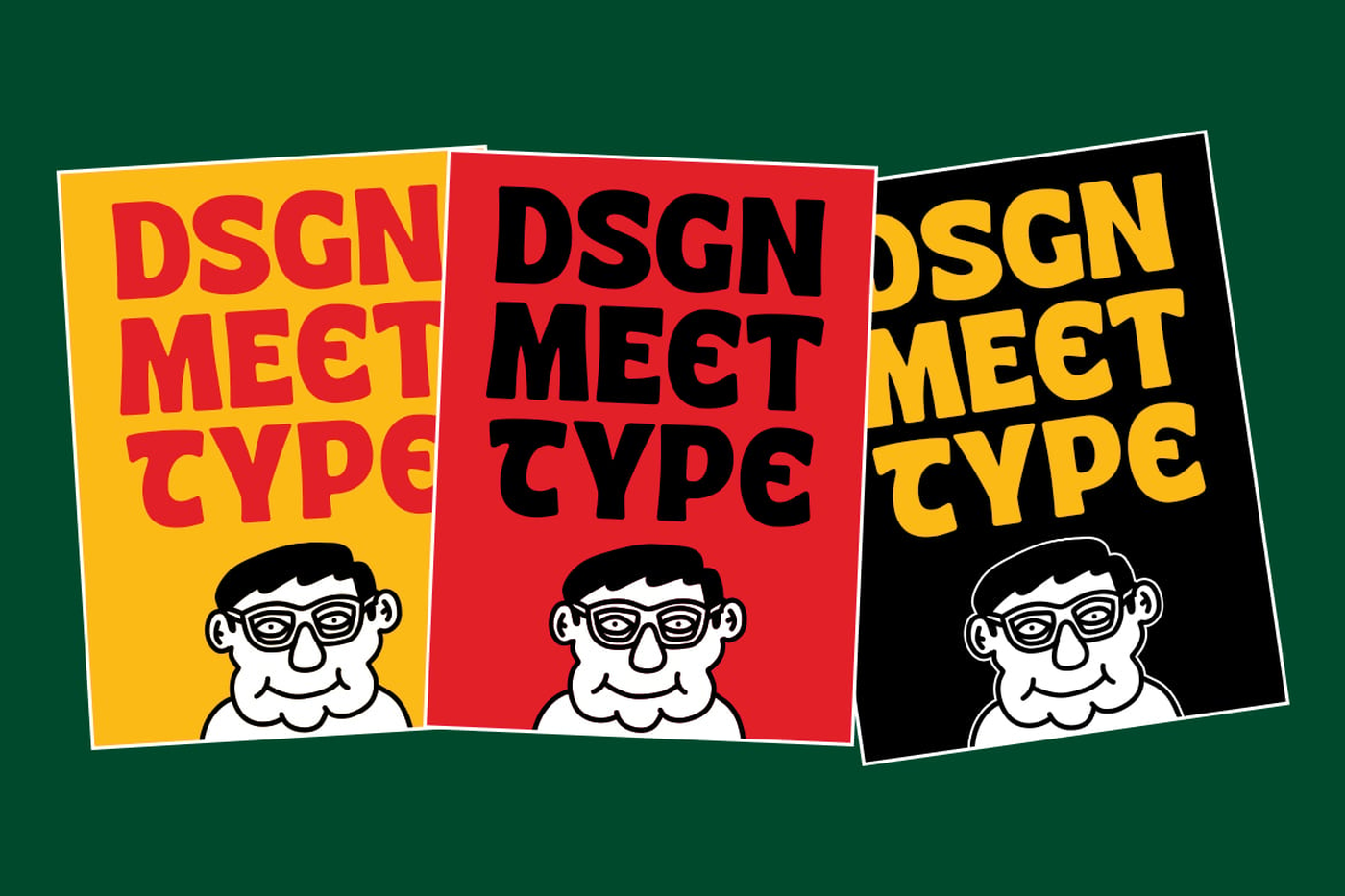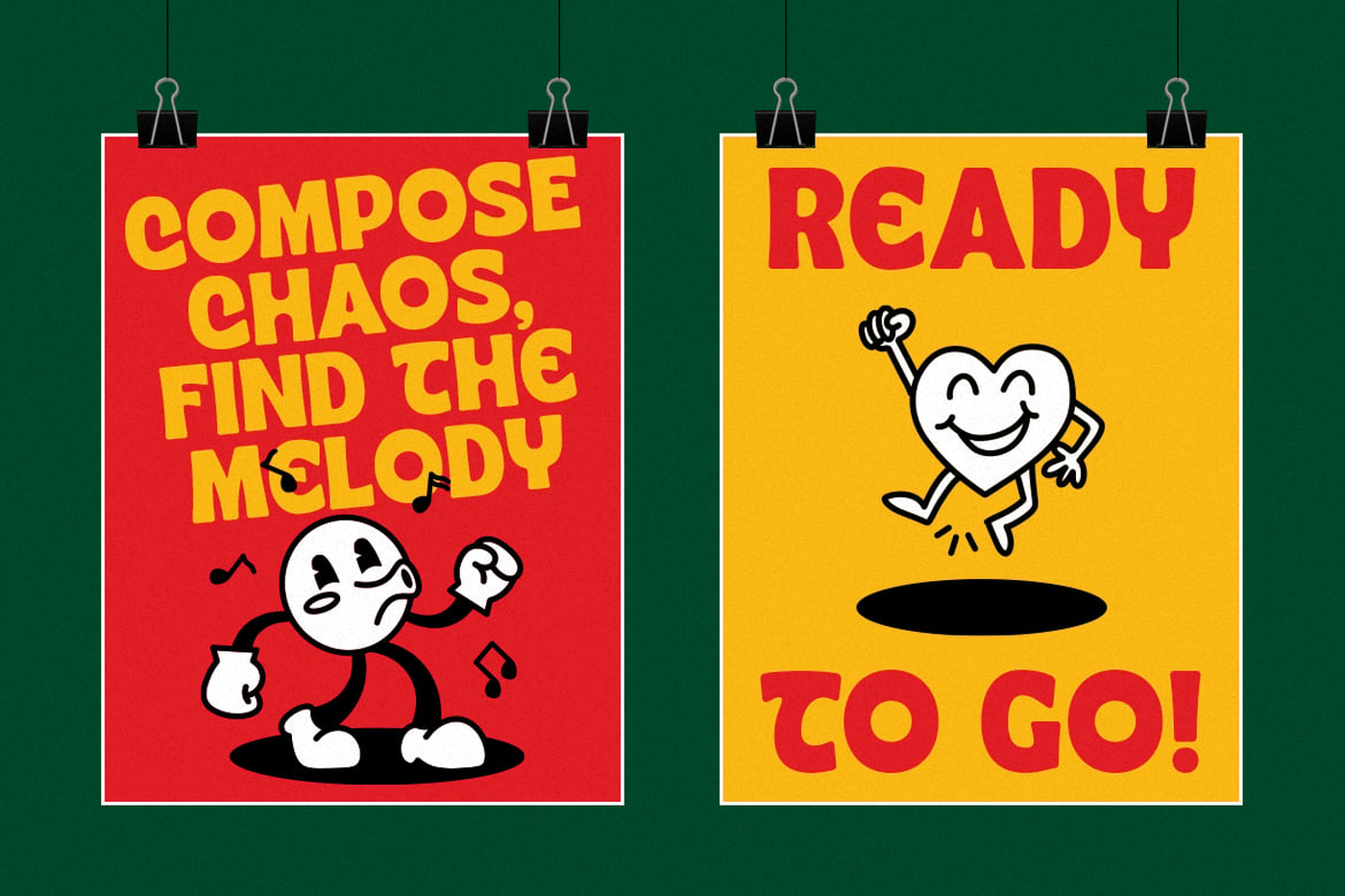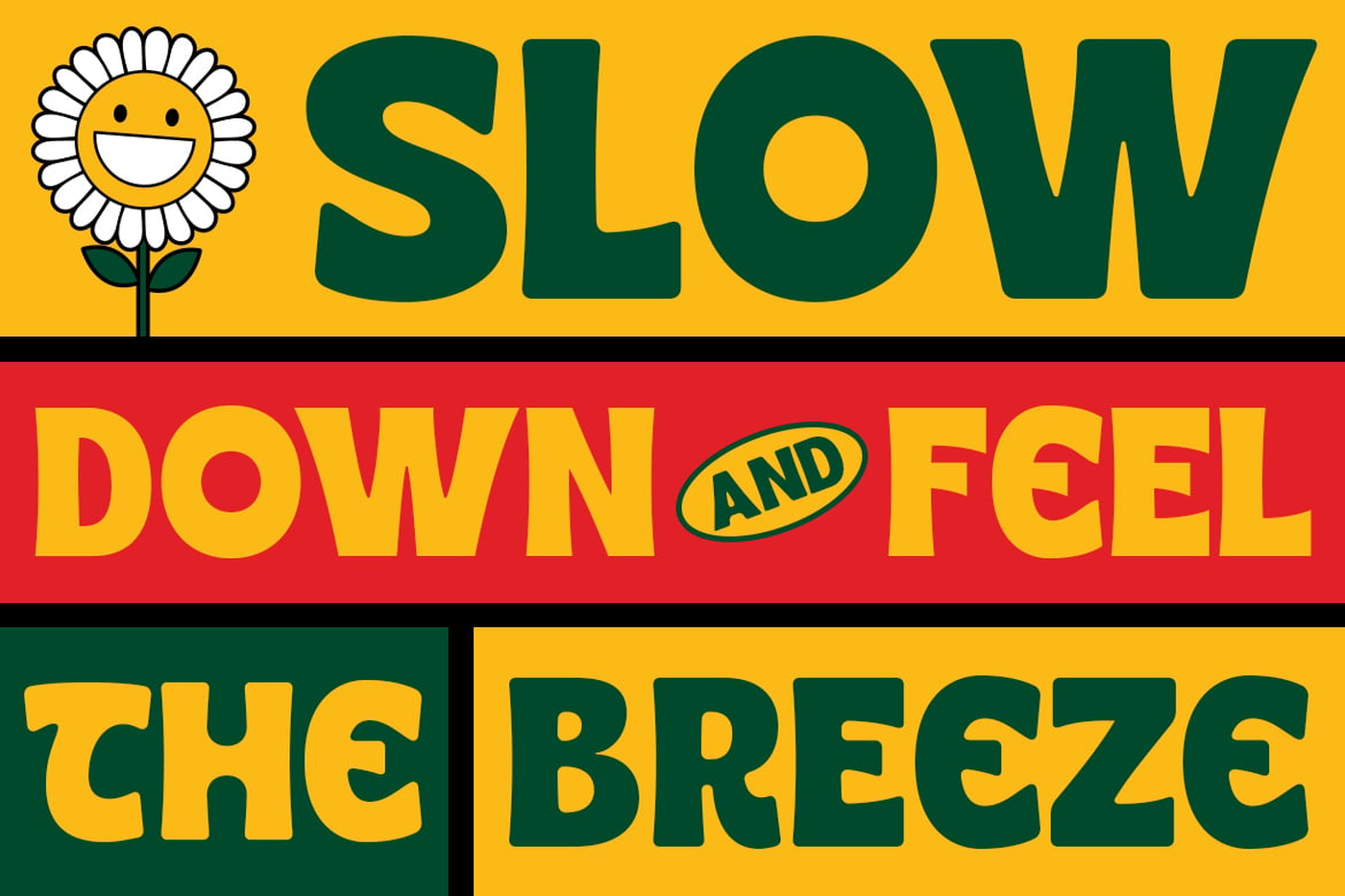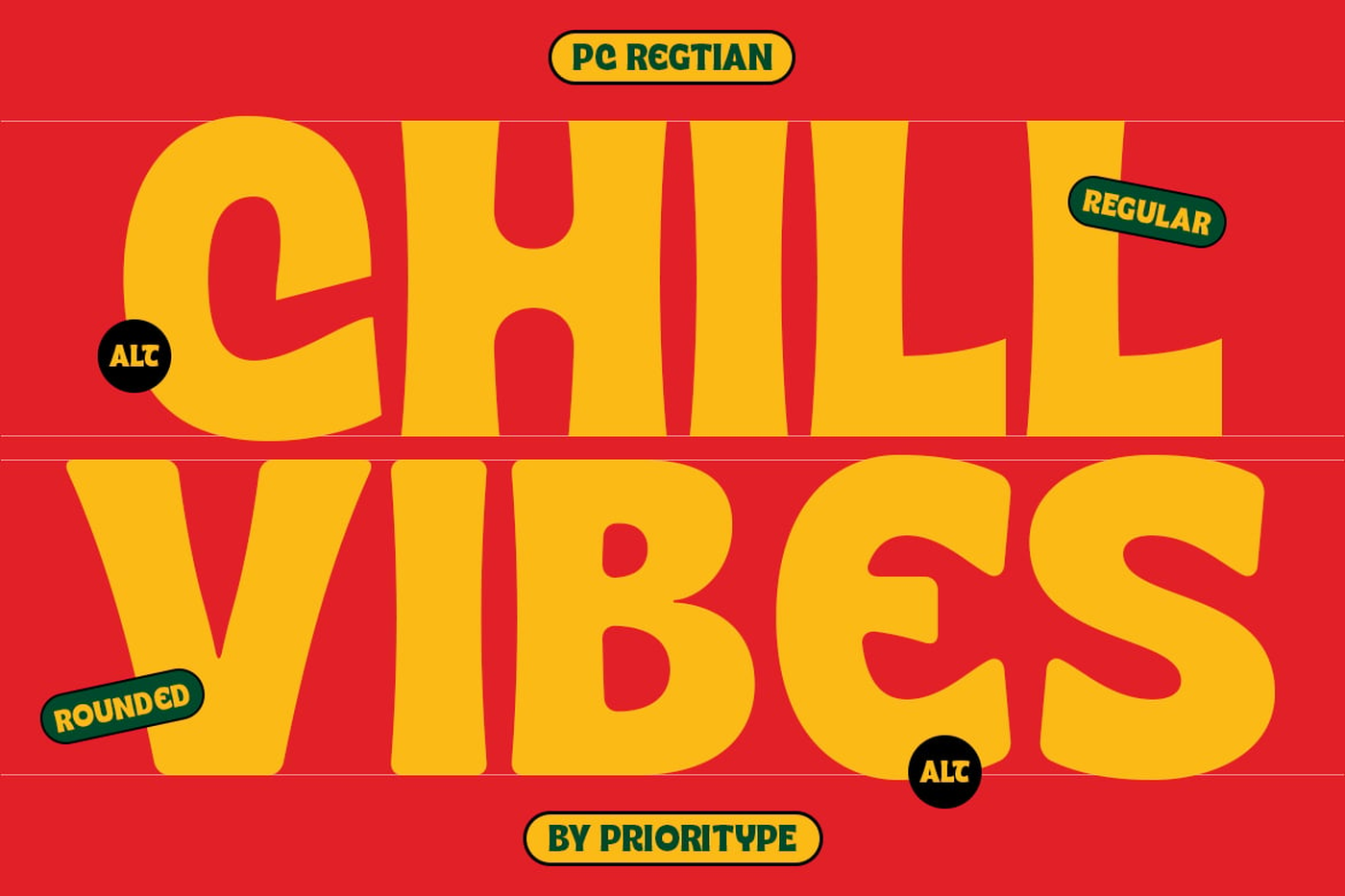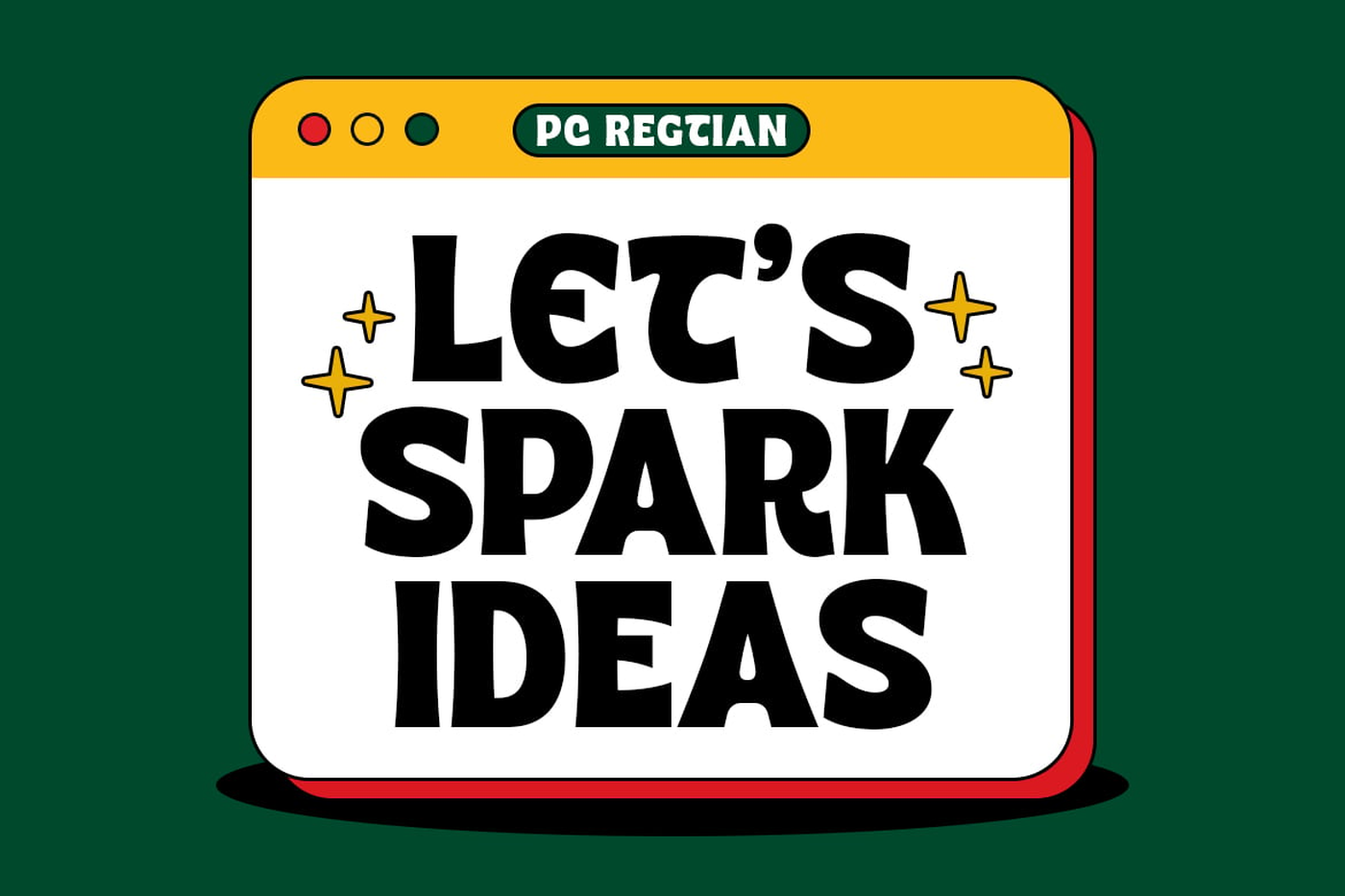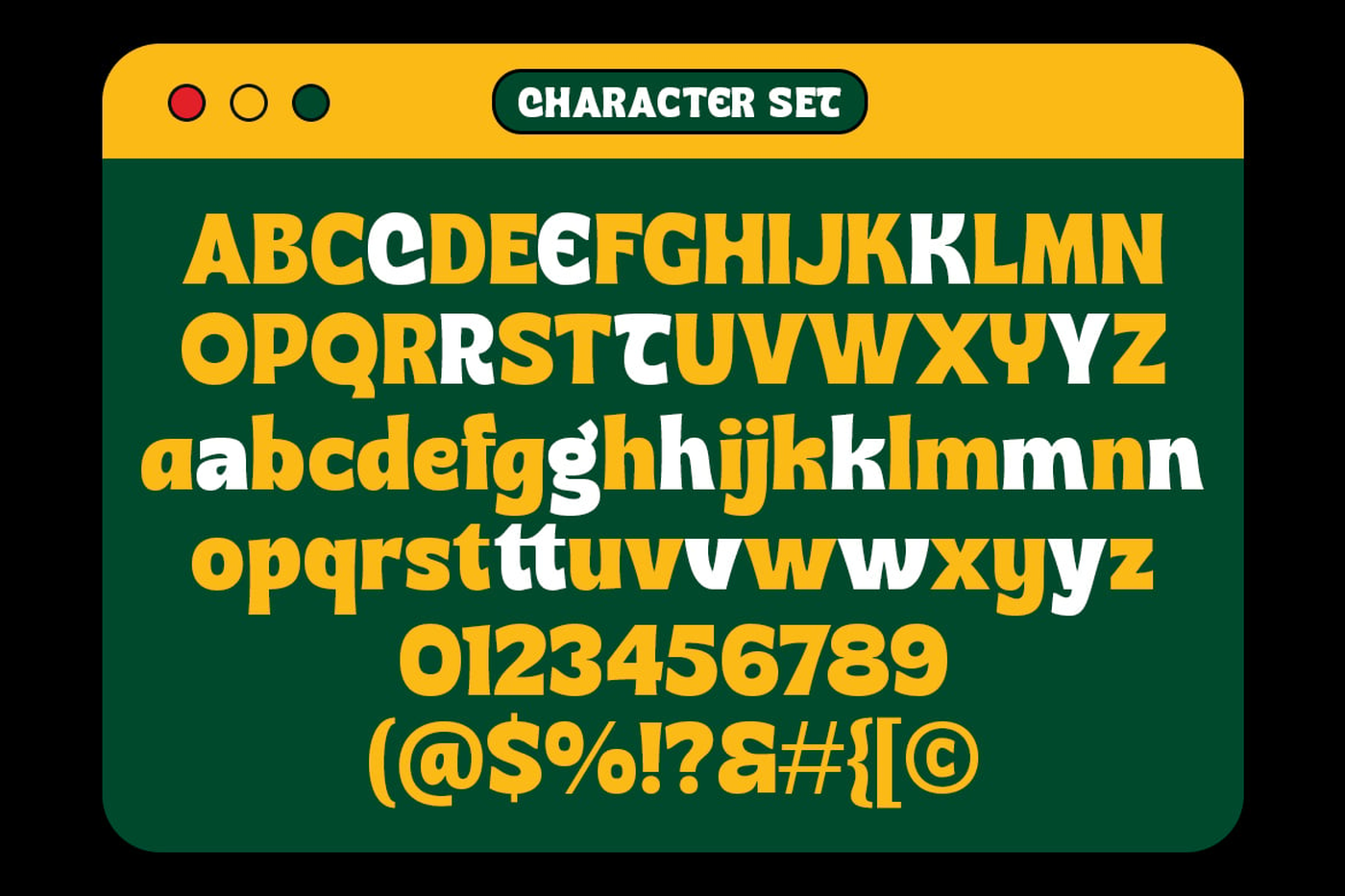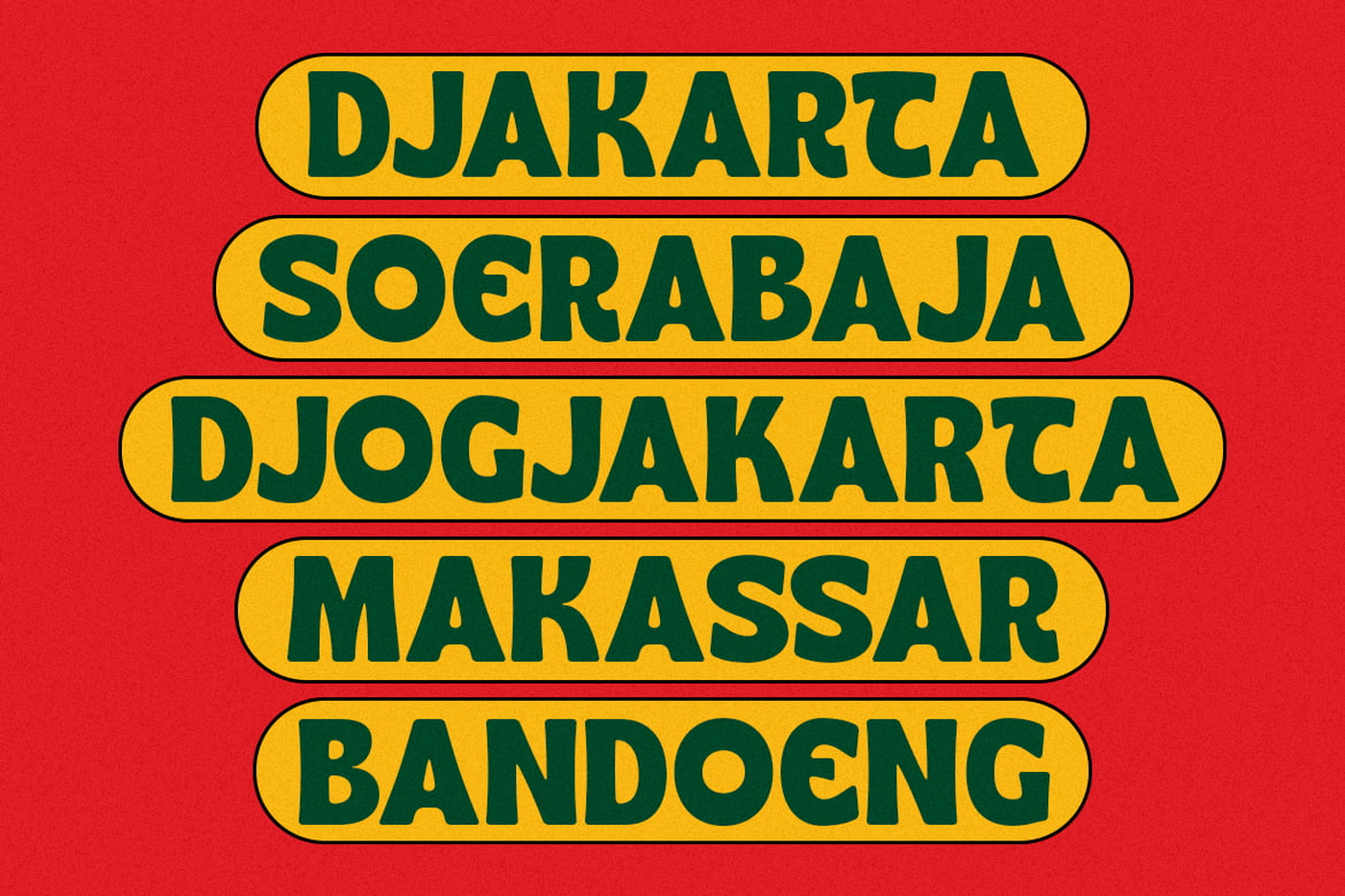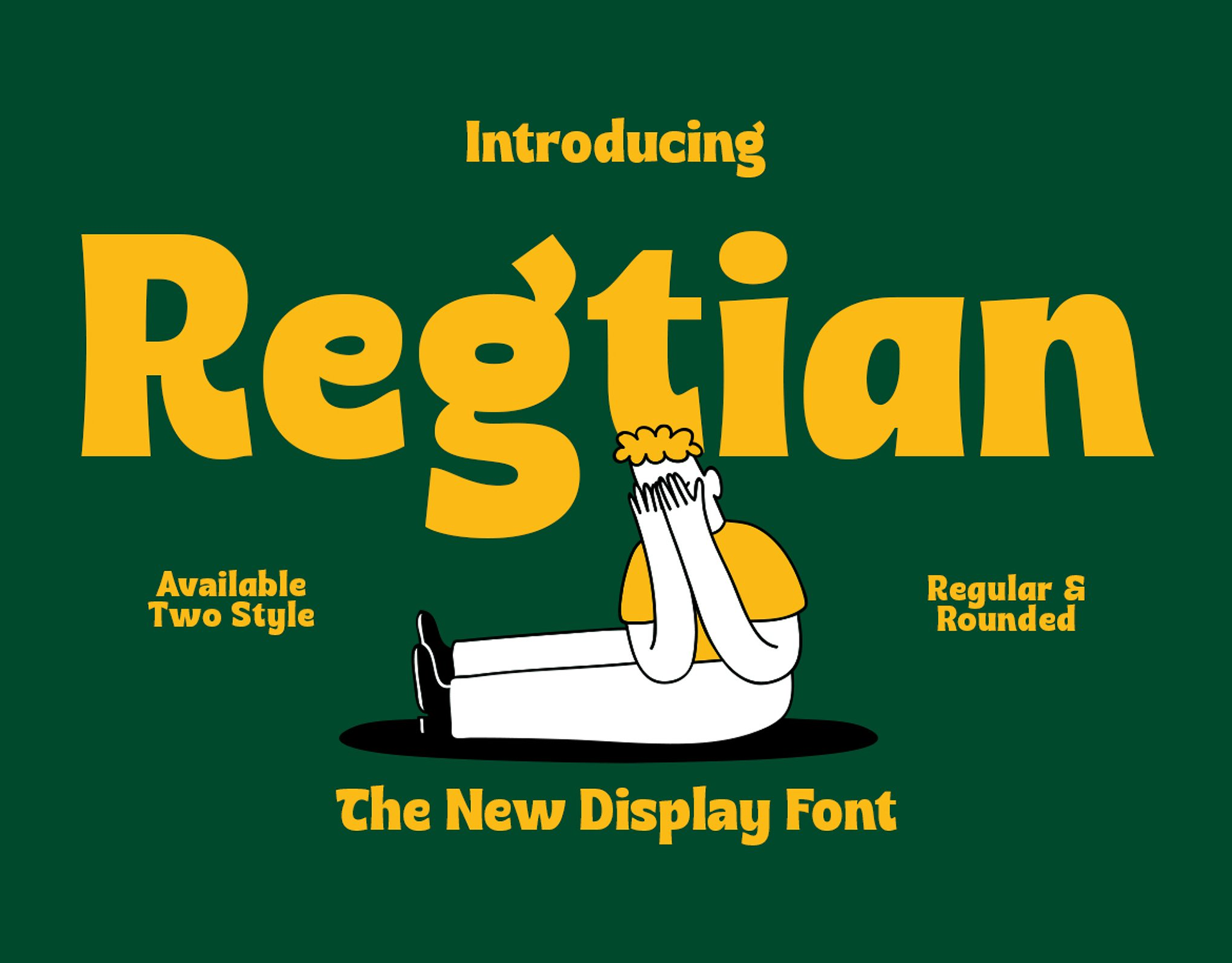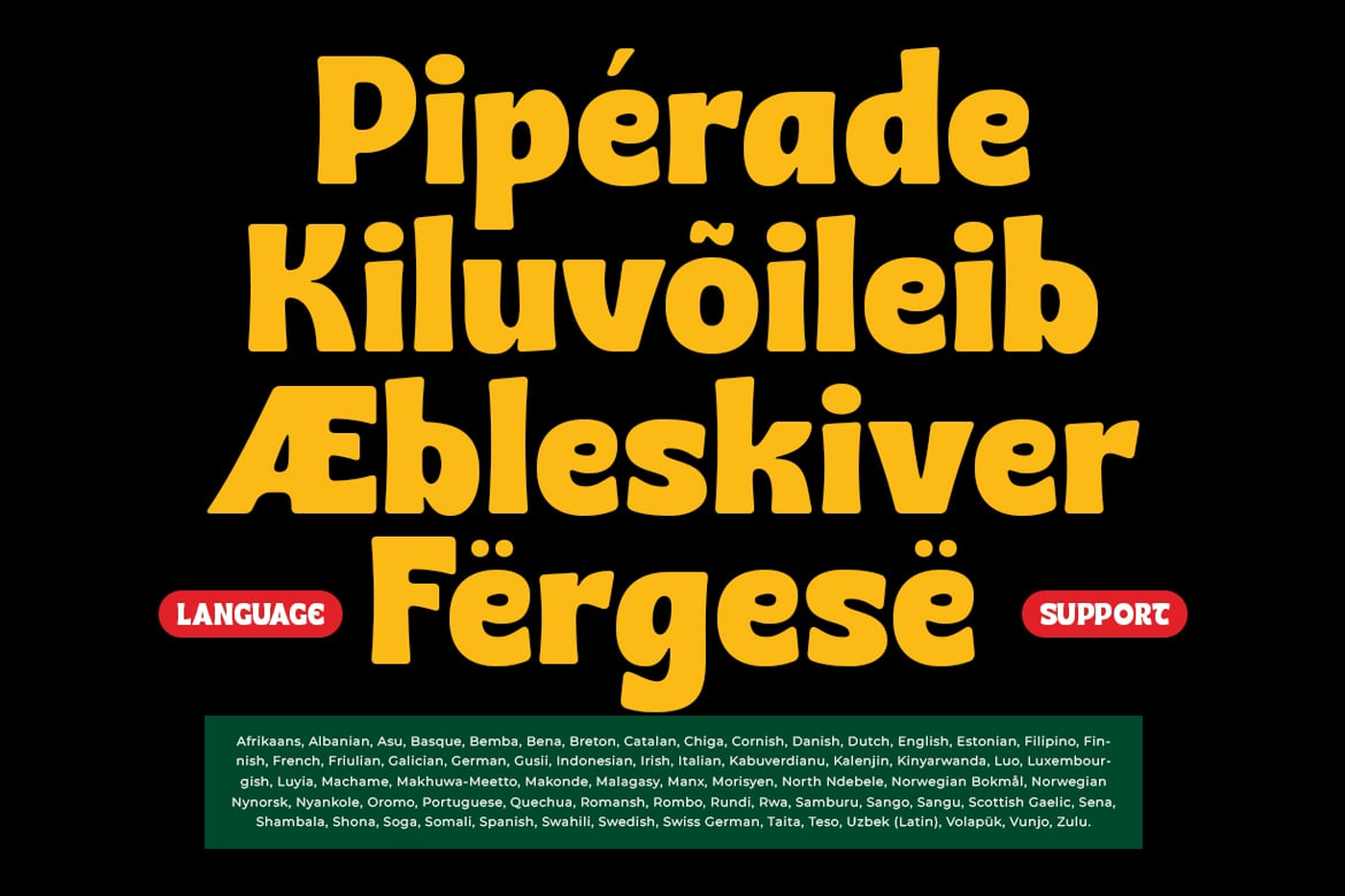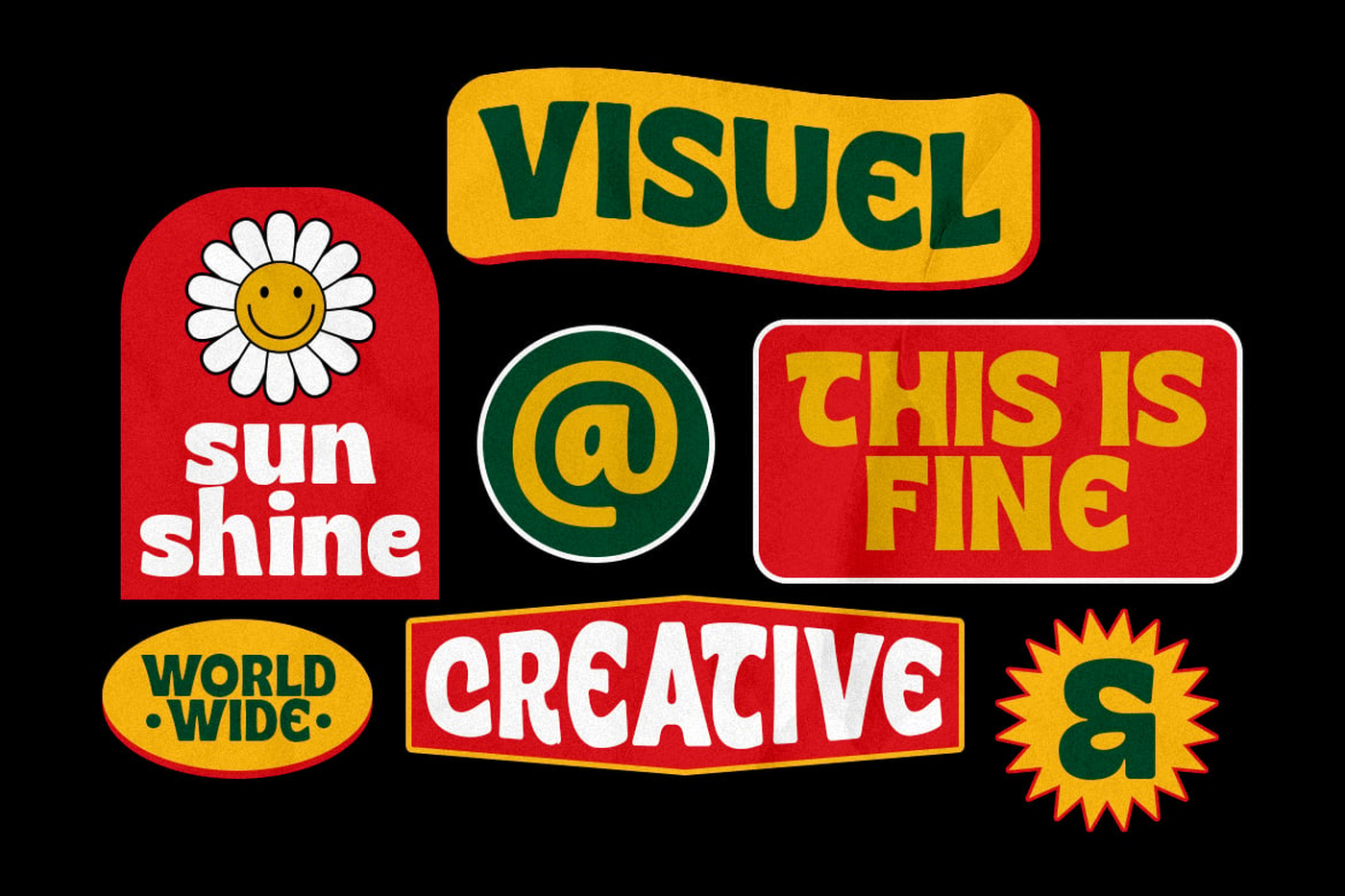
Regtian - Display Font
Regtian, attention-grabbing display font available in Regular and Rounded styles. With its unique letter alternates, this font adds a dynamic edge to your designs, making it perfect for posters, logos, and branding projects. Whether you're aiming for a modern look or something with a retro twist, Pc Regtian adapts effortlessly to your creative needs. Ready to go!
Designer: Prioritype Co
Font: Regtian